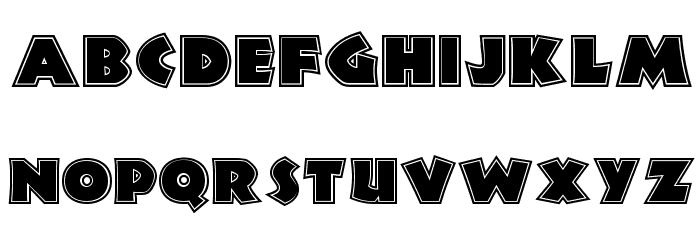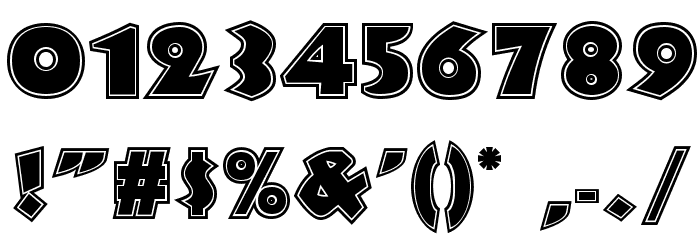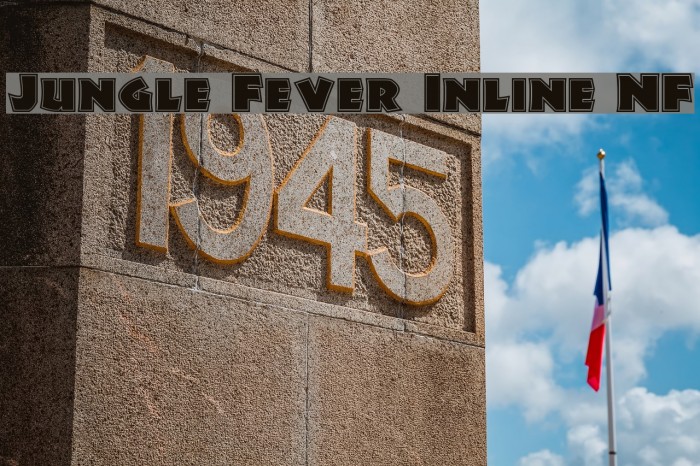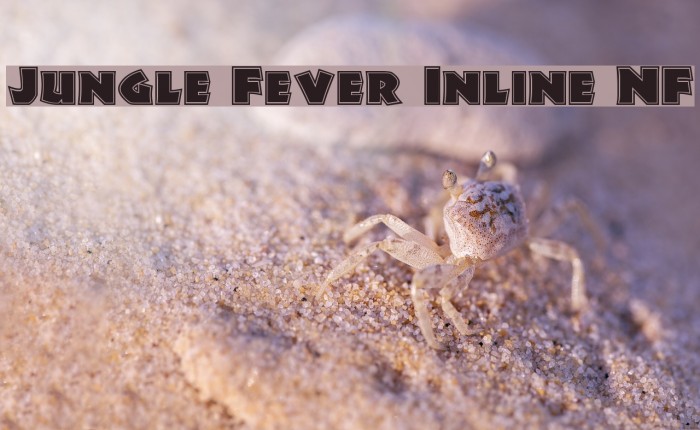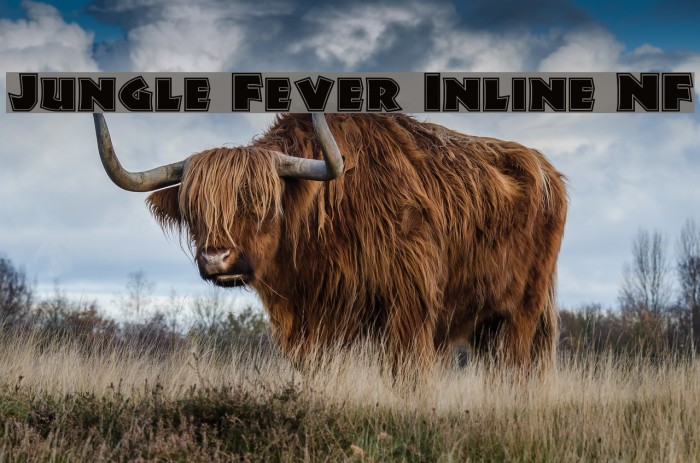
Jungle Fever Inline NF Font
This font features a bold, decorative style with a unique inline design that adds depth and dimension to each character. The uppercase letters are prominent and eye-catching, making them ideal for attention-grabbing headlines or titles. The inline detail provides a sense of movement and energy, reminiscent of vintage poster designs. The numbers and special characters maintain the same bold and dynamic aesthetic, ensuring consistency across all text elements. This font is perfect for projects that require a strong visual impact and a touch of retro flair.
A bold, decorative font with a unique inline design, perfect for impactful headlines.
- Proposed Projects: Ideal for posters, logos, branding materials, and any design needing a vintage or retro touch.
- Contrast: High
- Overall Style: Vintage